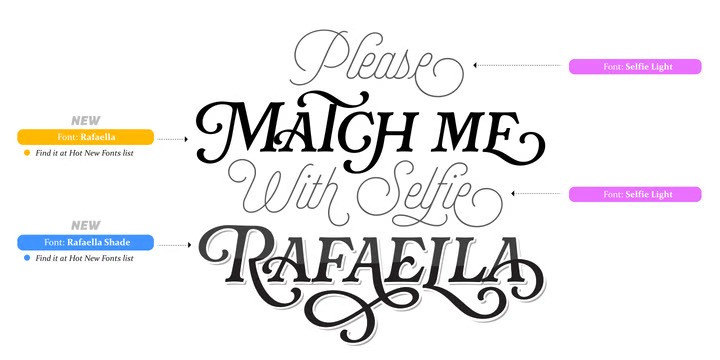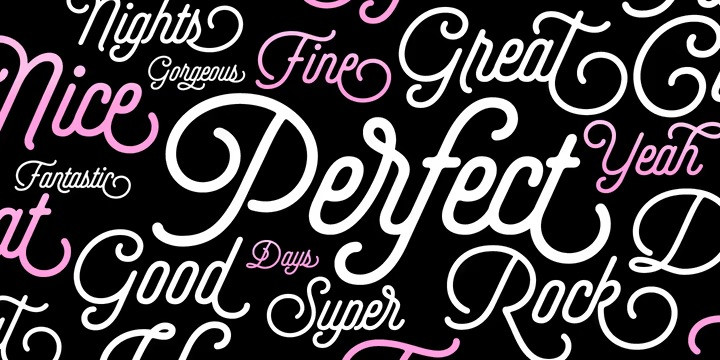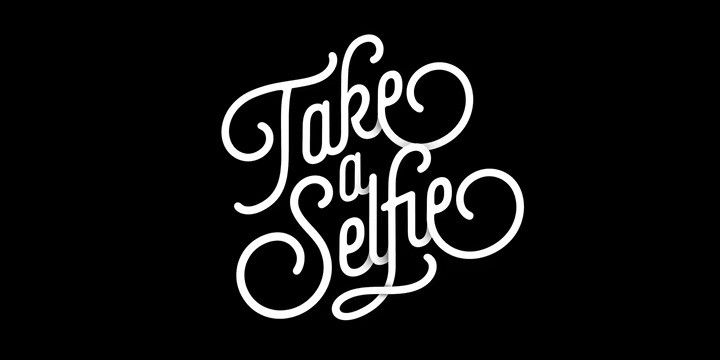
Selfie Font Family
Selfie Font is a connected sans serif based in vintage signage scripts seen in Galerías of Buenos Aires. These places are, in general, very small shopping centres which pedestrians sometimes use as shortcuts to get to other parts of the city.
But first, let me take a Selfie!- said that girl of the song and almost all of you at least once this year.
While some terms and actions get trendy, some font styles do it too. It wouldn’t be crazy to combine these worlds, in fact it happens often.